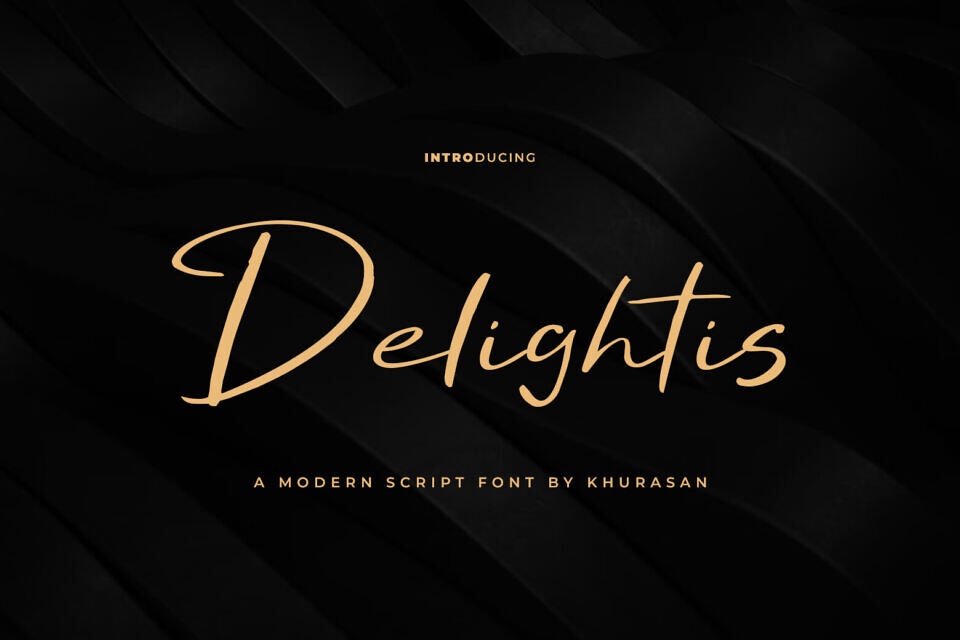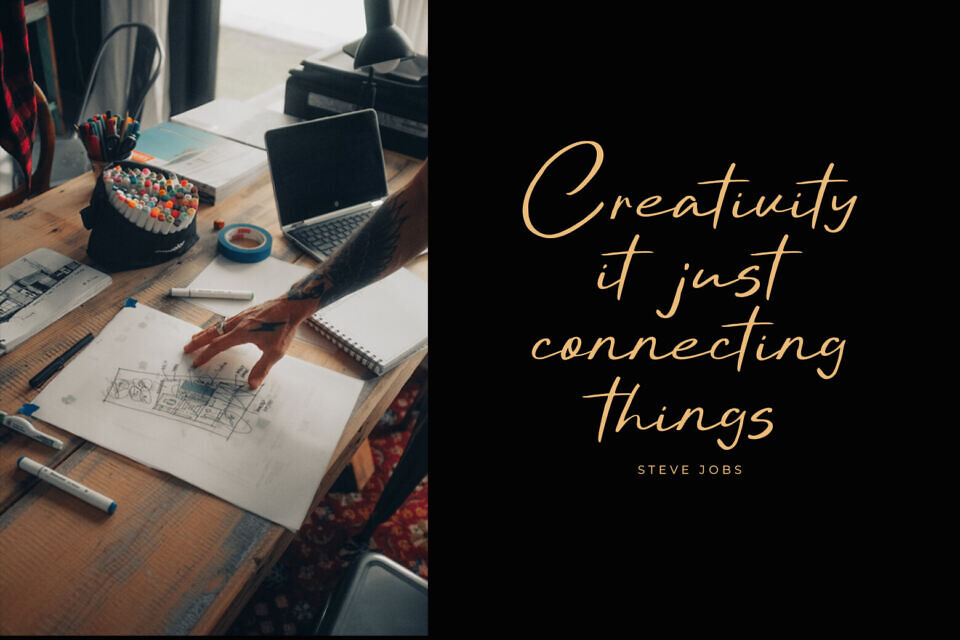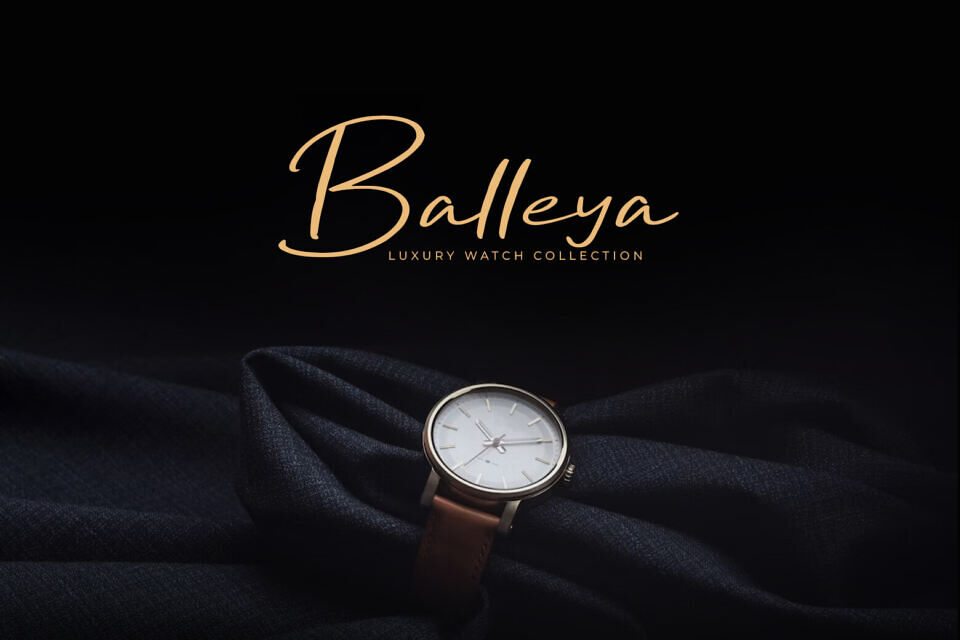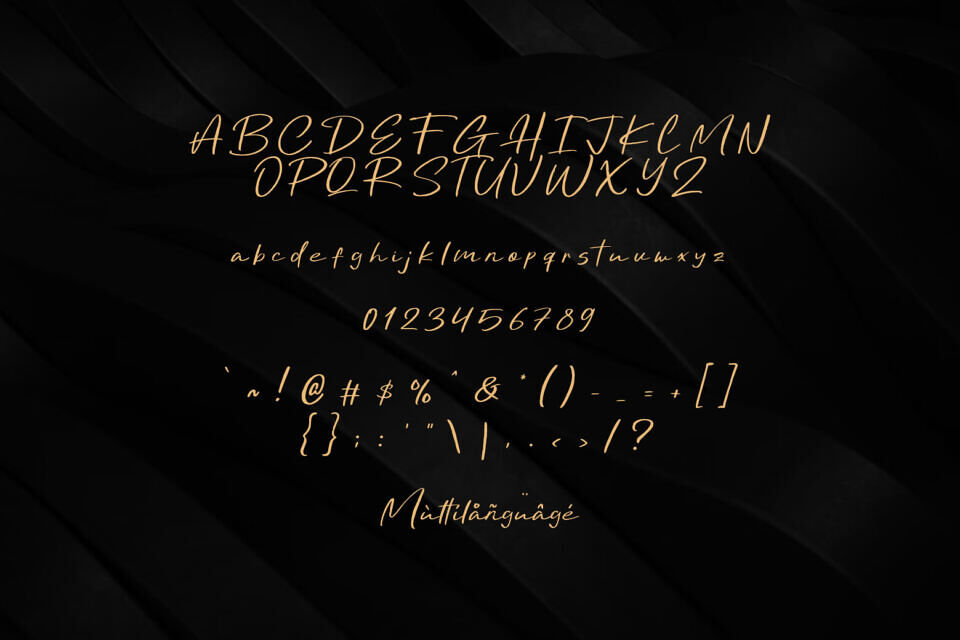
Delightis is a clean, stylish, modern, and elegant script handwriting font perfect for posters, logos, magazines, book covers, banners, and many more! Get this amazing font, and use it to create lovely designs.